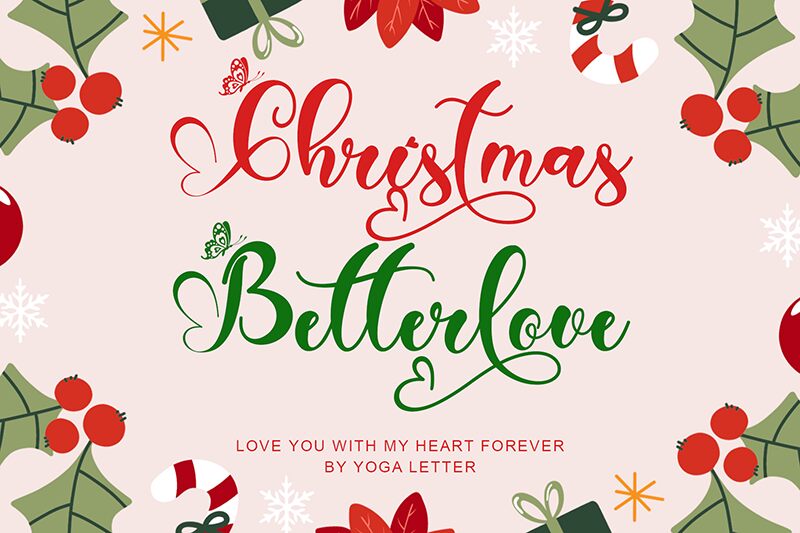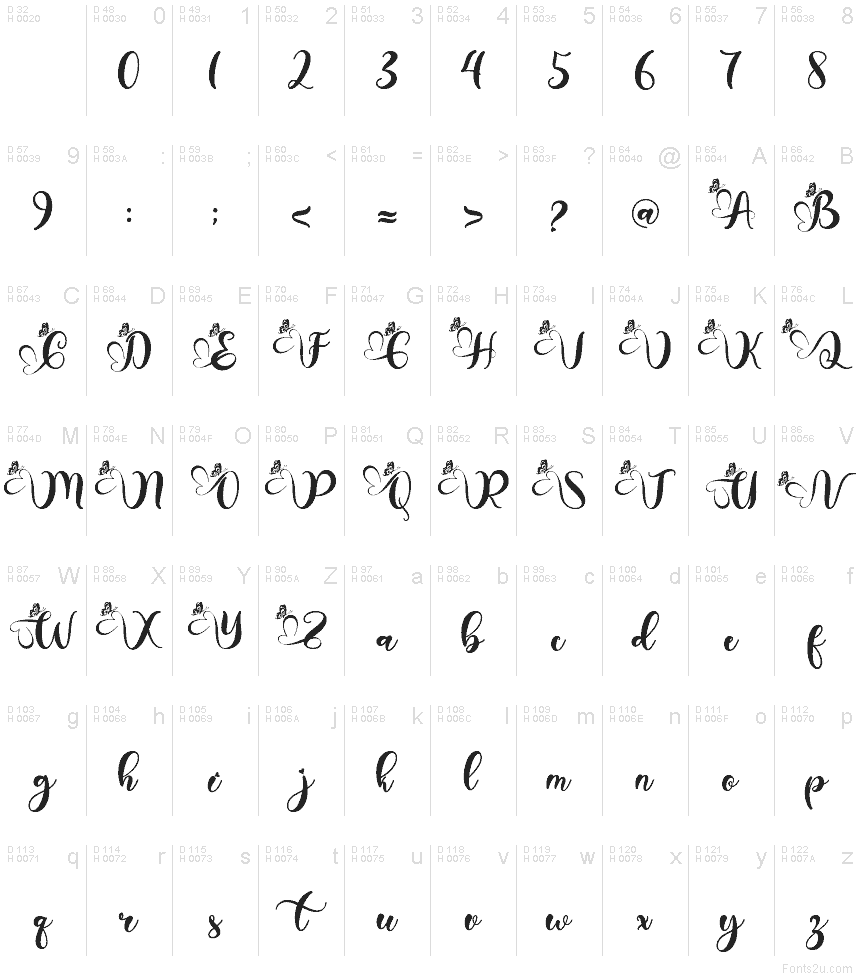
Christmas Betterlove font by Yoga Letter is a free holiday calligraphy typeface that captures the feeling of handwritten Christmas cards and twinkling lights. Its sweeping, brushy strokes feel inky and warm, with playful heart-like swashes and tiny butterflies that give every word a cozy, romantic sparkle. The letters link together in a gentle rhythm, so even short phrases look like a flowing festive script.
Using Christmas Betterlove, your “Merry Christmas” suddenly feels personal and crafted, not generic. This free font shines on greeting cards, gift tags, seasonal logos, party invitations, social media posts, and mug or packaging designs. Pair its flourished script with a clean sans serif in small caps for supporting text, and let Christmas Betterlove stay large and airy to show off those elegant curls.